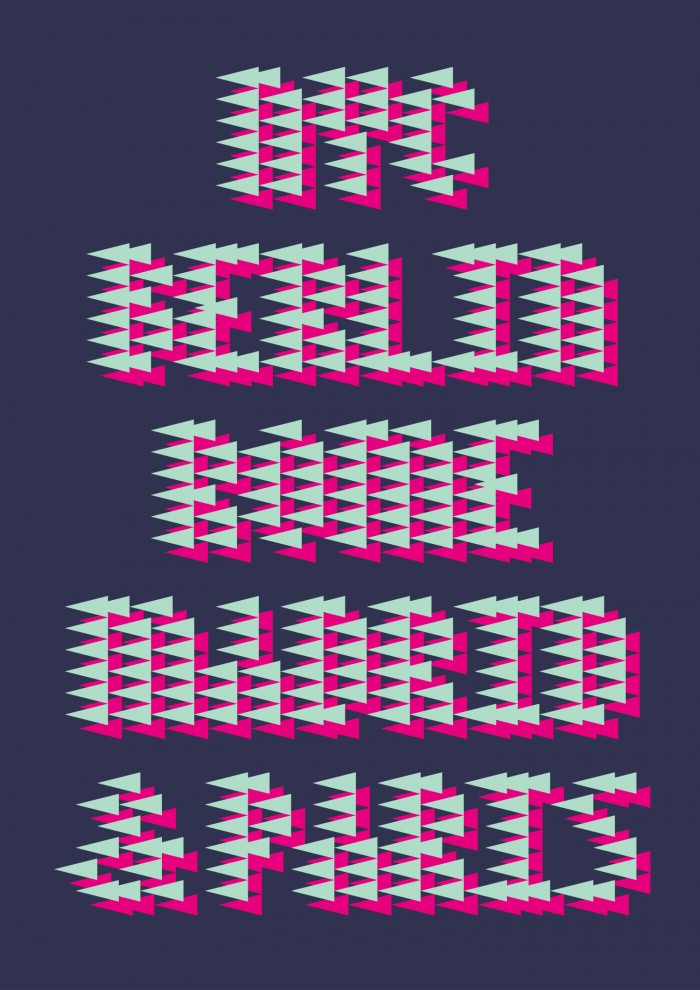
• Based on a font that I made years back, this “Reverse” contest has been a good excuse to revisit that project and fine tune the letters heavily. Here the challange has been using a single brick, in the case the arrow pointing back, and making the shapes bold and (ok, you have to squeez your eyes a little) legible.
A font that advanzes at high speed ;) this is a clever design, legible with half closed eyes, very eye catching. I can also read it when I look at the white space which is the opposite to normal  reading. Good luck :)
And another sample in action.
Effective use of a single brick!
It's legible at small sizes and playful at large. A solid work.
OK, is this a joke!? I can't even read the letters! Sorry, but I can't rate this up.
I can make the letters out...
Mahir, you need to almost close your eyes if the letters are large; or you reduce the size as on the red banner. This is a competition entry and it's supposed to be "something not usual".
Based on a 3x5 matrix (with 5x5 fallbacks). Cool effect!
B.t.w. a funny fact: if you clone the mirror of 'FS REW', you get your avatar… (?) ;-)